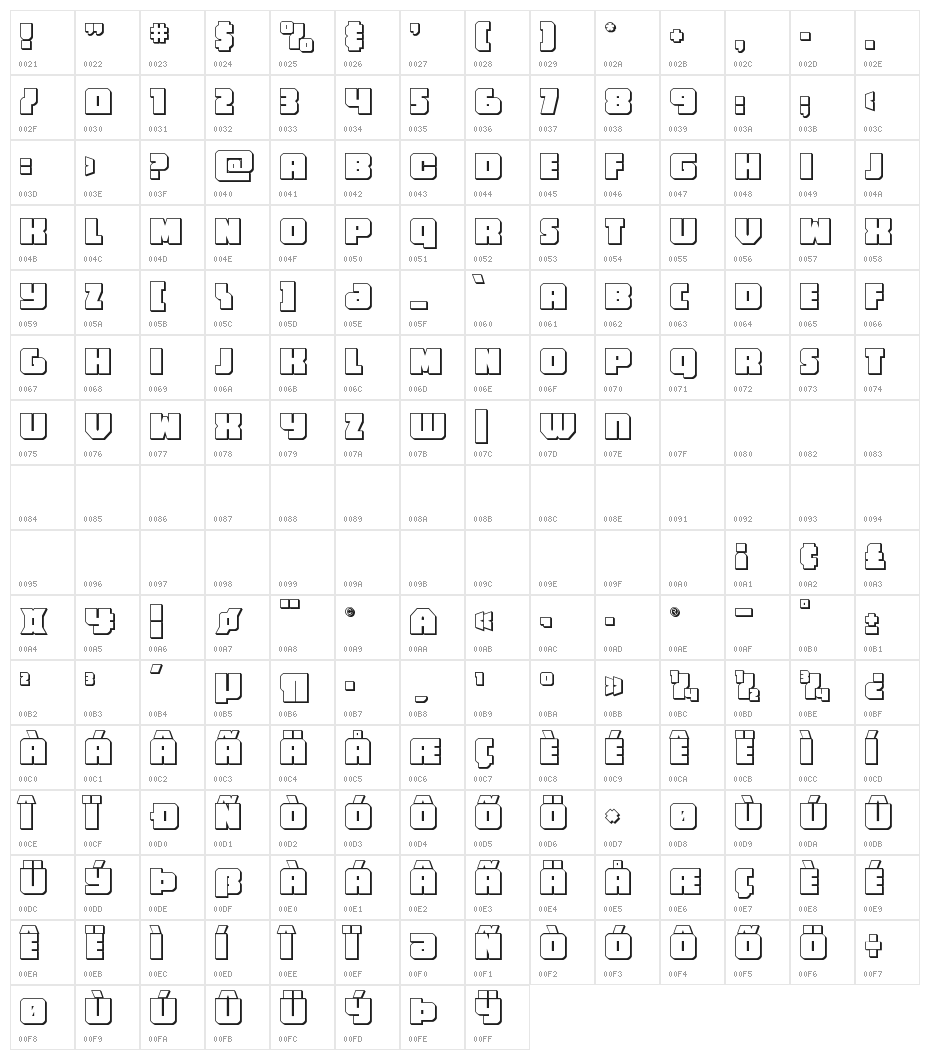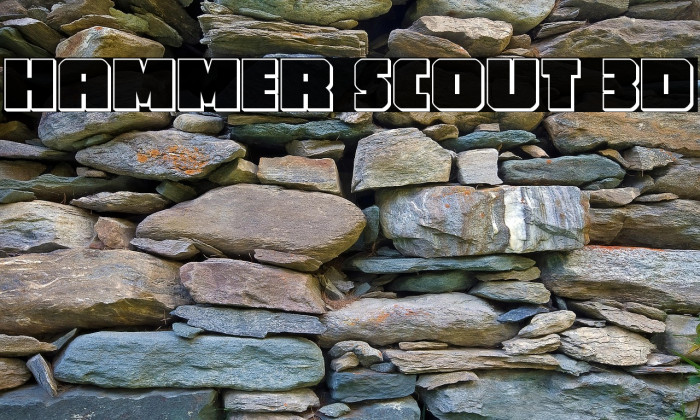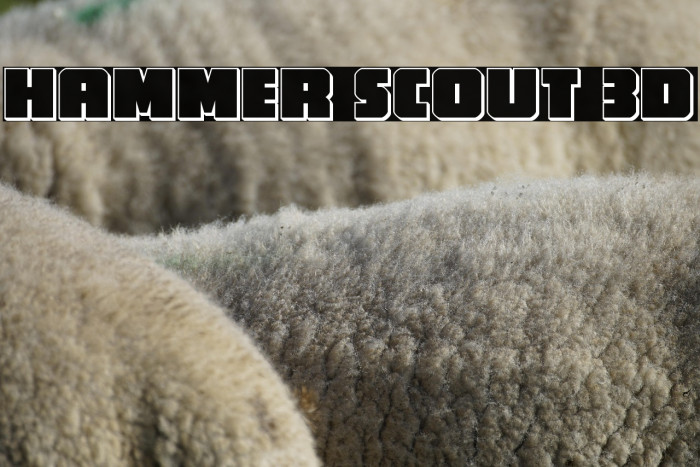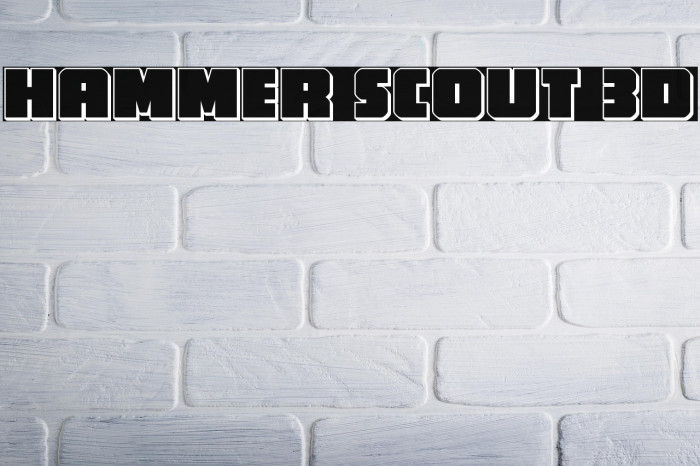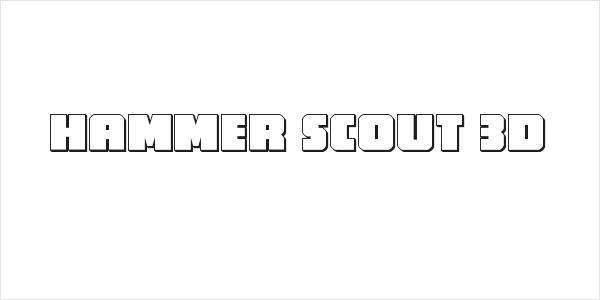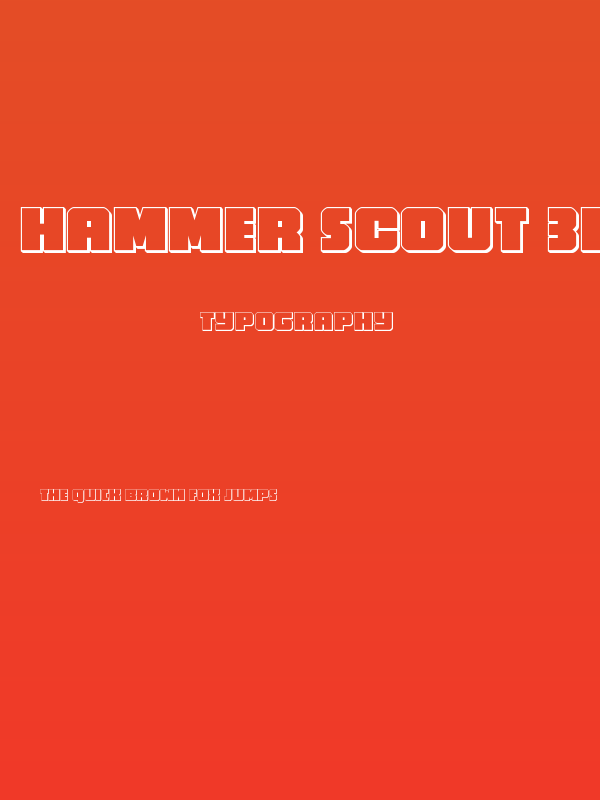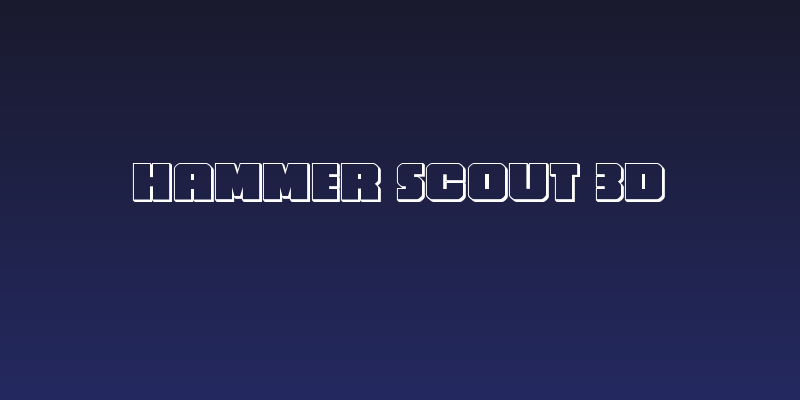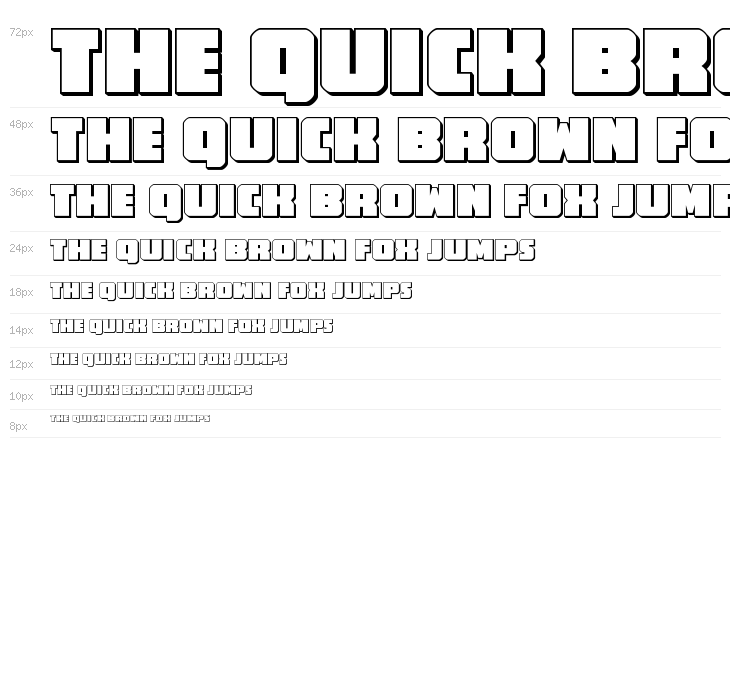
Hammer Scout 3D Font
Hammer Scout 3D Description
This font features a bold, three-dimensional style with a strong, blocky appearance. Each character is outlined, giving it a distinct shadow effect that enhances its 3D look. The uppercase and lowercase letters maintain a consistent thickness, contributing to a uniform and cohesive design. The numbers and special characters follow the same stylistic approach, ensuring a harmonious appearance across all glyphs. The font's geometric shapes and sharp angles make it stand out, ideal for attention-grabbing designs.